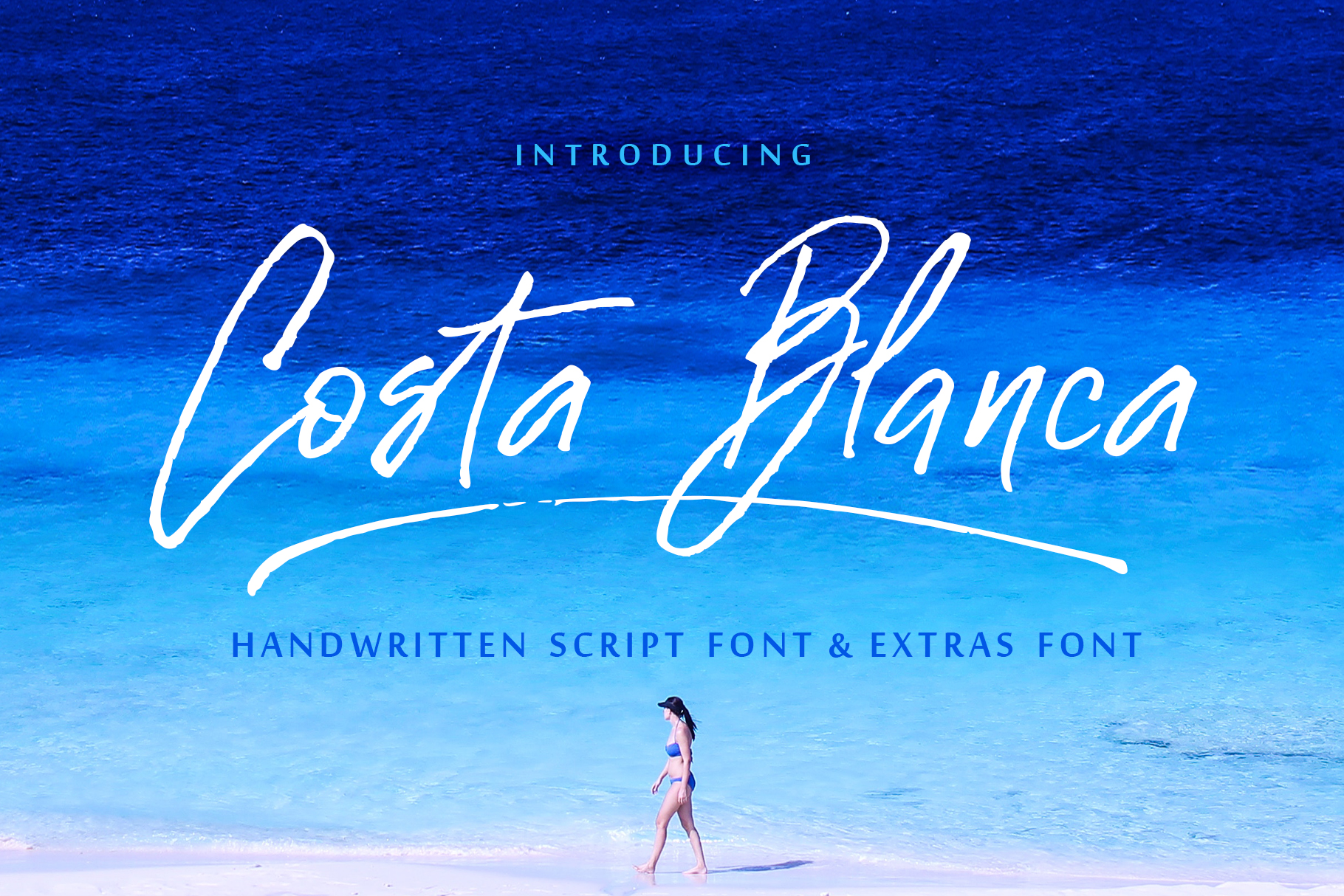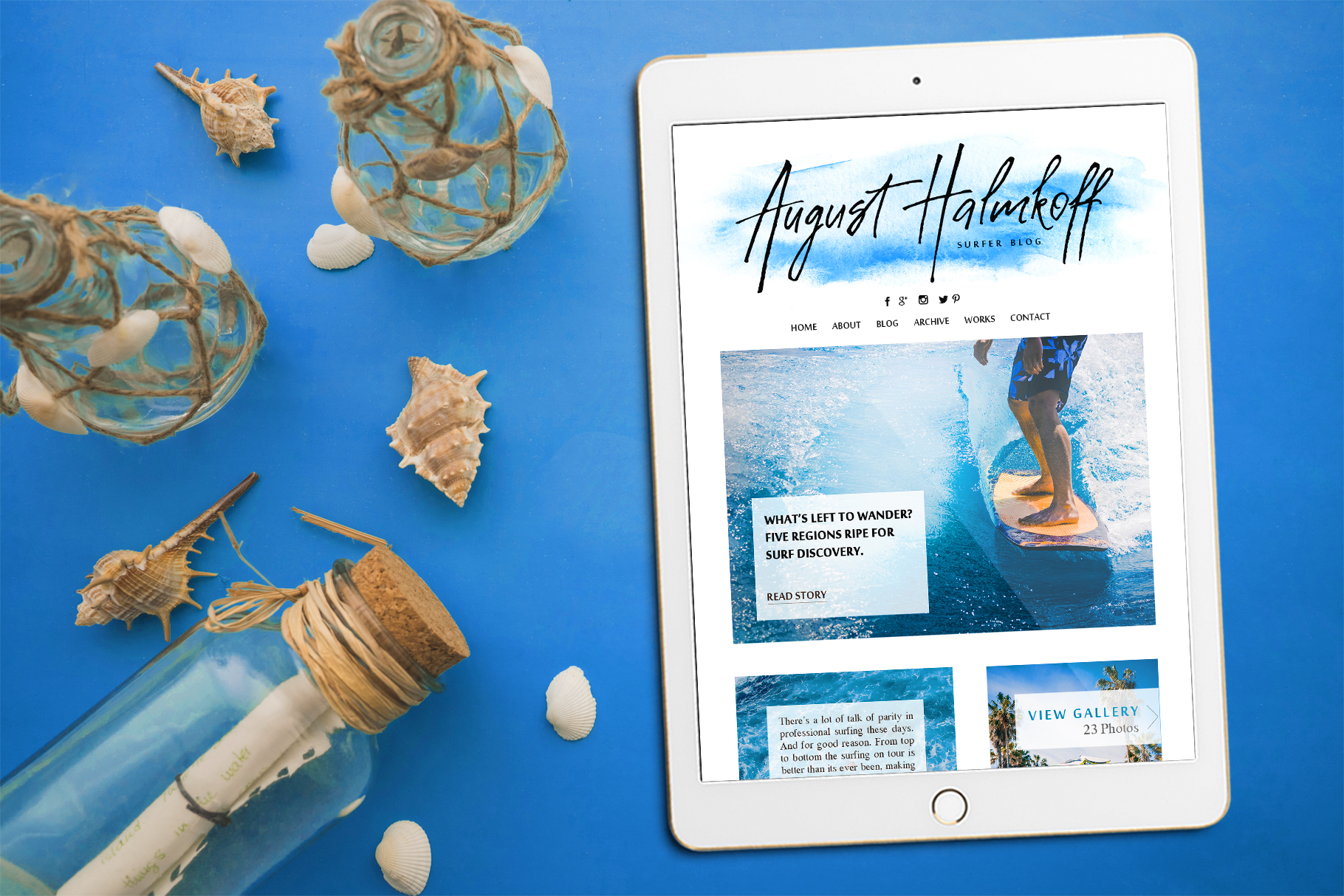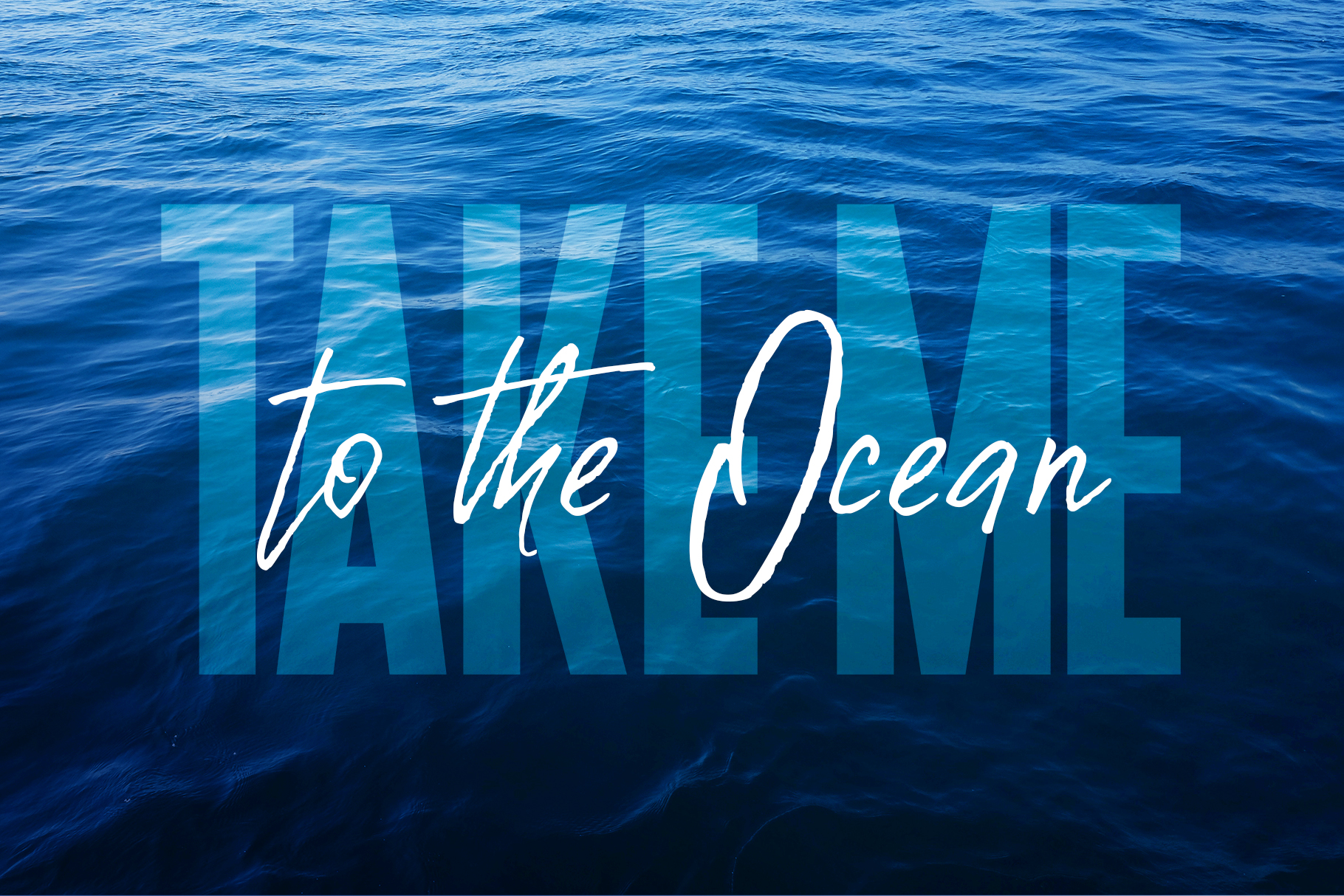
About Costa Blanca Font
“Everybody has their own handwriting. And I have too. My new font based on it. So let me present to you my new script font, Costa Blanca. Delicate like thin twigs, this hand-lettered font adds personal charm.”